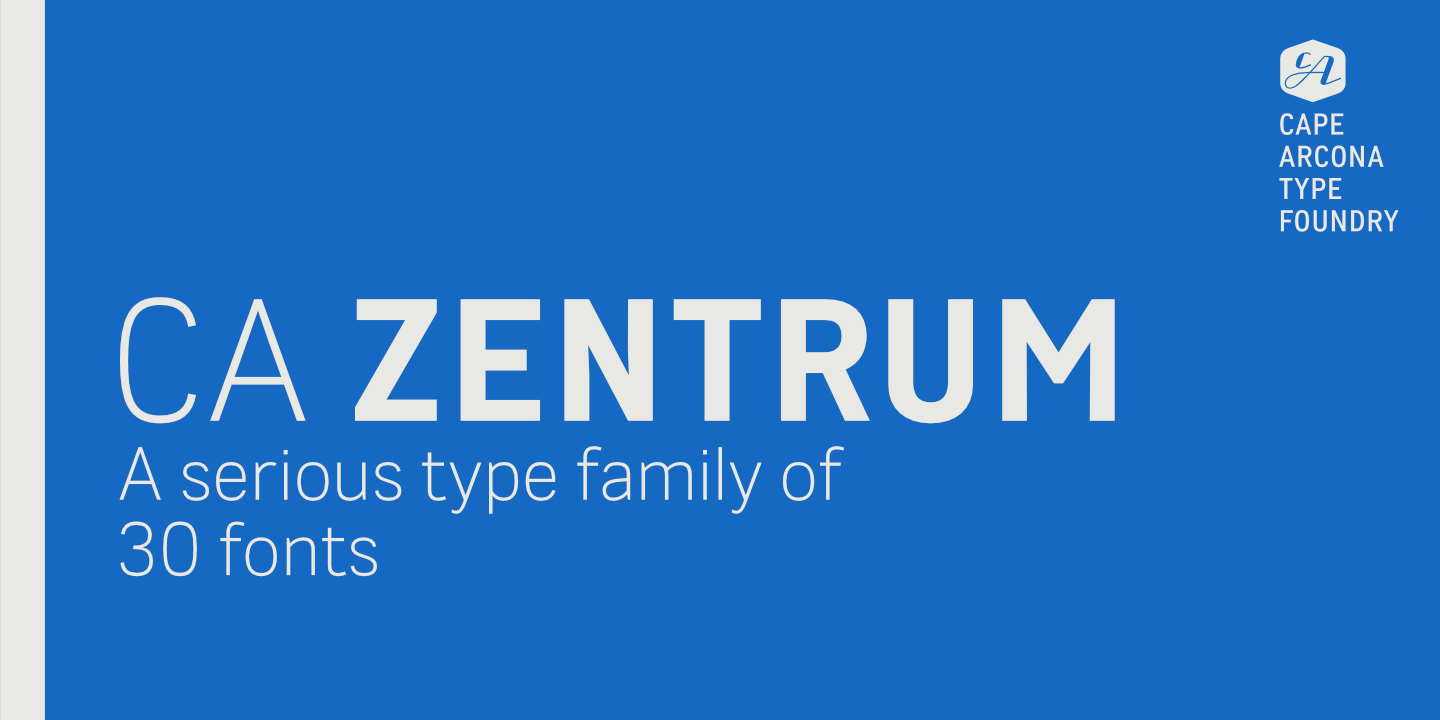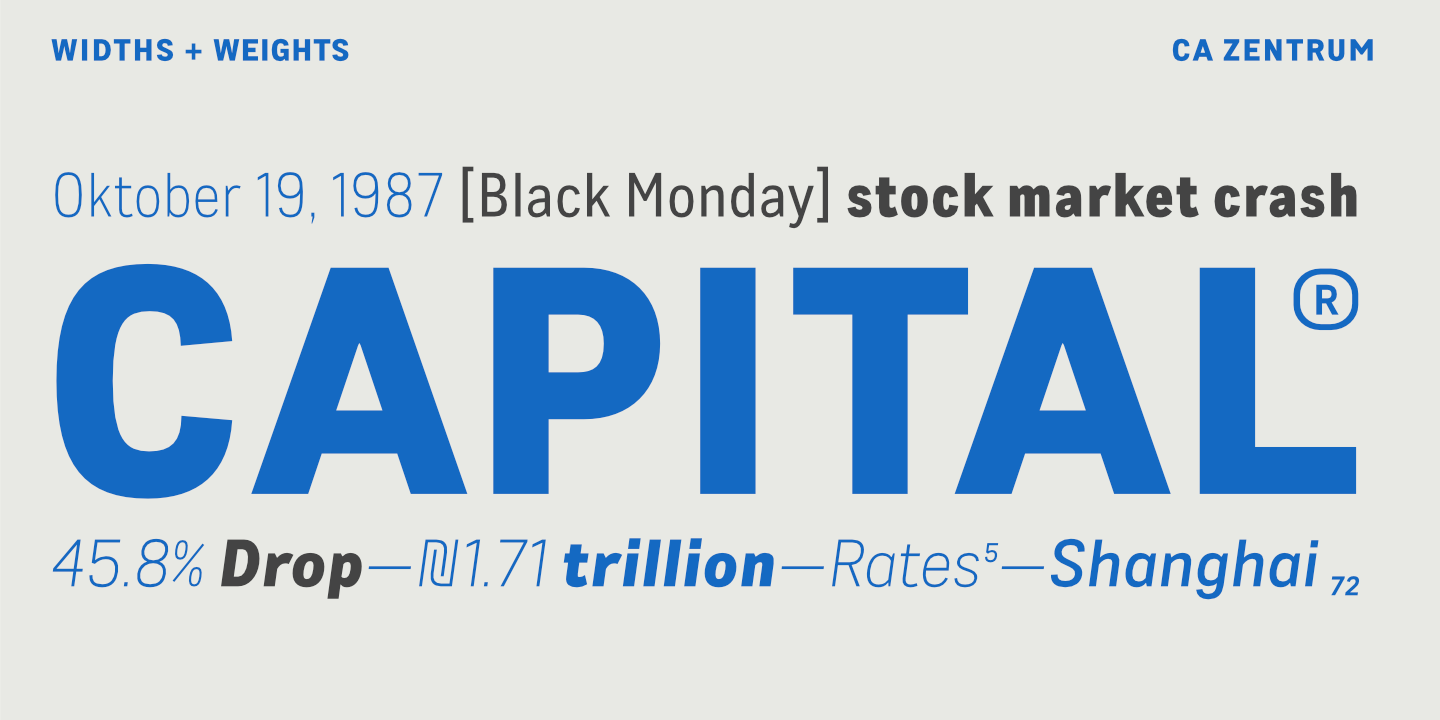
NEW: CA Zentrum font family
Our new typeface, CA ZENTRUM is now available!
Mostly suited for modern corporate visual languages, websites, corporate design, editorial design and advertising – with a set of five well-balanced weights and three widths. Available now at the Cape Arcona Type Foundry.